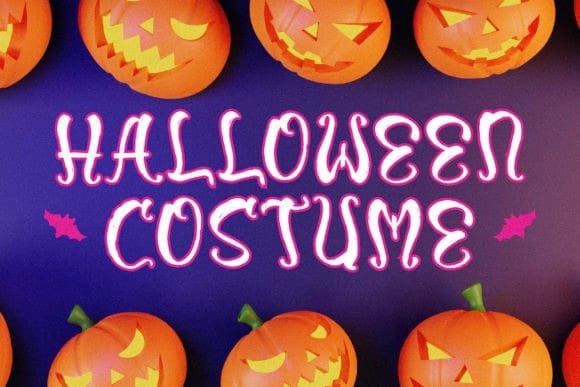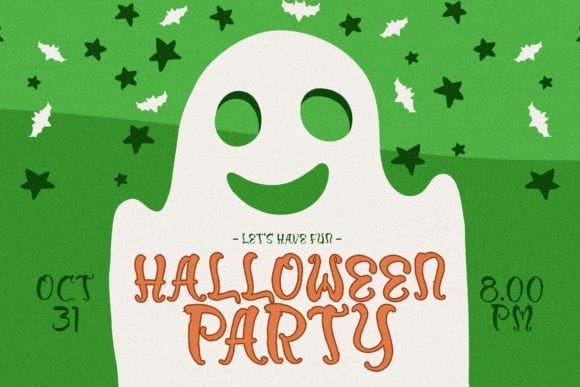
Morlew Candy Font
Morlew Candy Font is a fun and spooky handwritten font. No matter the topic, this font will be an incredible asset to your fonts’ library, as it has the potential to elevate any creation.